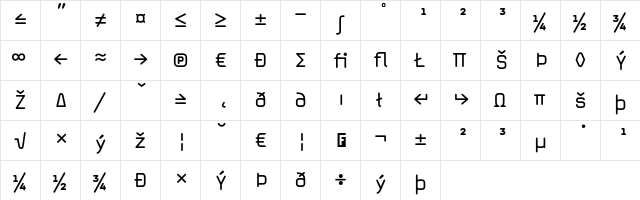
MagdaClean RegularExpert
Design Context for MagdaClean Typeface
MagdaClean offers clean, dependable letterforms without strong stylistic allegiance, making it a practical choice for designers who need flexibility.